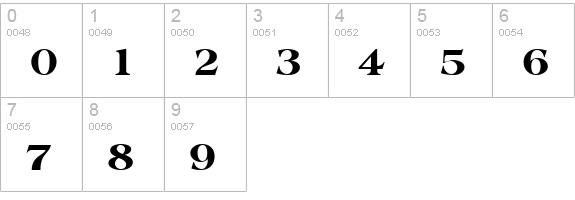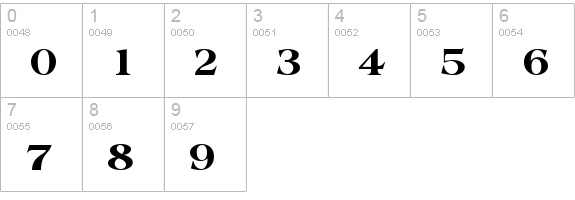
AmphionExtrabold Regular Font Details
AmphionExtrabold Regular is the standard, neutral variant in the AmphionExtrabold typeface family \xE2\x80\x94 well suited to general body text, paragraphs, and standard typographic work.
AmphionExtrabold Regular font is a striking and bold typeface that exudes power and confidence. With its strong and commanding presence, this font is perfect for making a bold statement in any design project. The thick, heavy strokes of AmphionExtrabold Regular demand attention and convey a sense of strength and authority. What's even better is that AmphionExtrabold Regular font is completely free to download at FontsMarket.com. That's right, you can add this impressive font to your collection without spending a dime. Don't miss out on the opportunity to enhance your designs with this impactful and eye-catching typeface. Download AmphionExtrabold Regular today and take your projects to the next level!